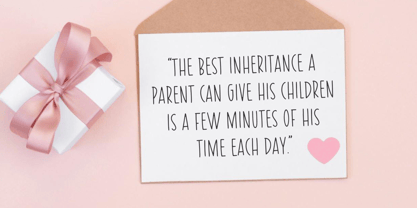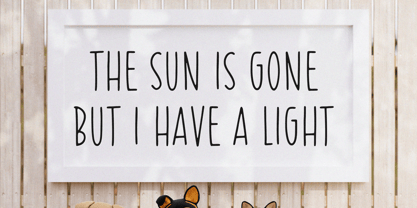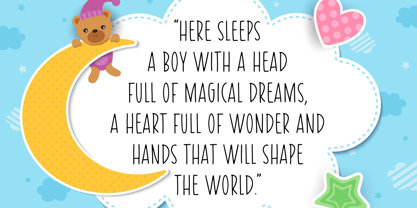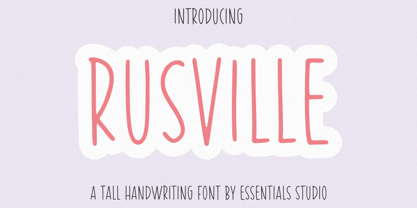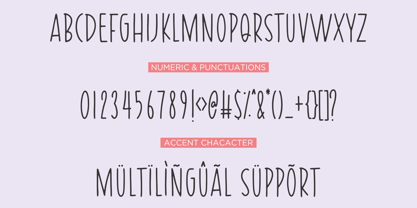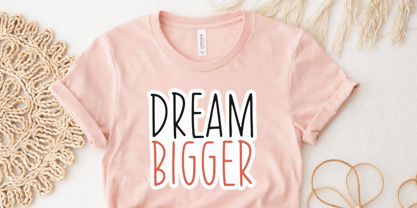
Rusville
by Essentials Studio
The Rusville Font Family was designed by Annas Rifky Anhar and published by Essentials Studio. Rusville contains 1 styles.
Rusville is a fun and friendly handwritten font. Its casual, tall, and thin letters are suitable for a wide spectrum of applications that require delicate typography.
Designers: Annas Rifky Anhar
Publisher: Essentials Studio
Foundry: Essentials Studio
Design Owner: Essentials Studio